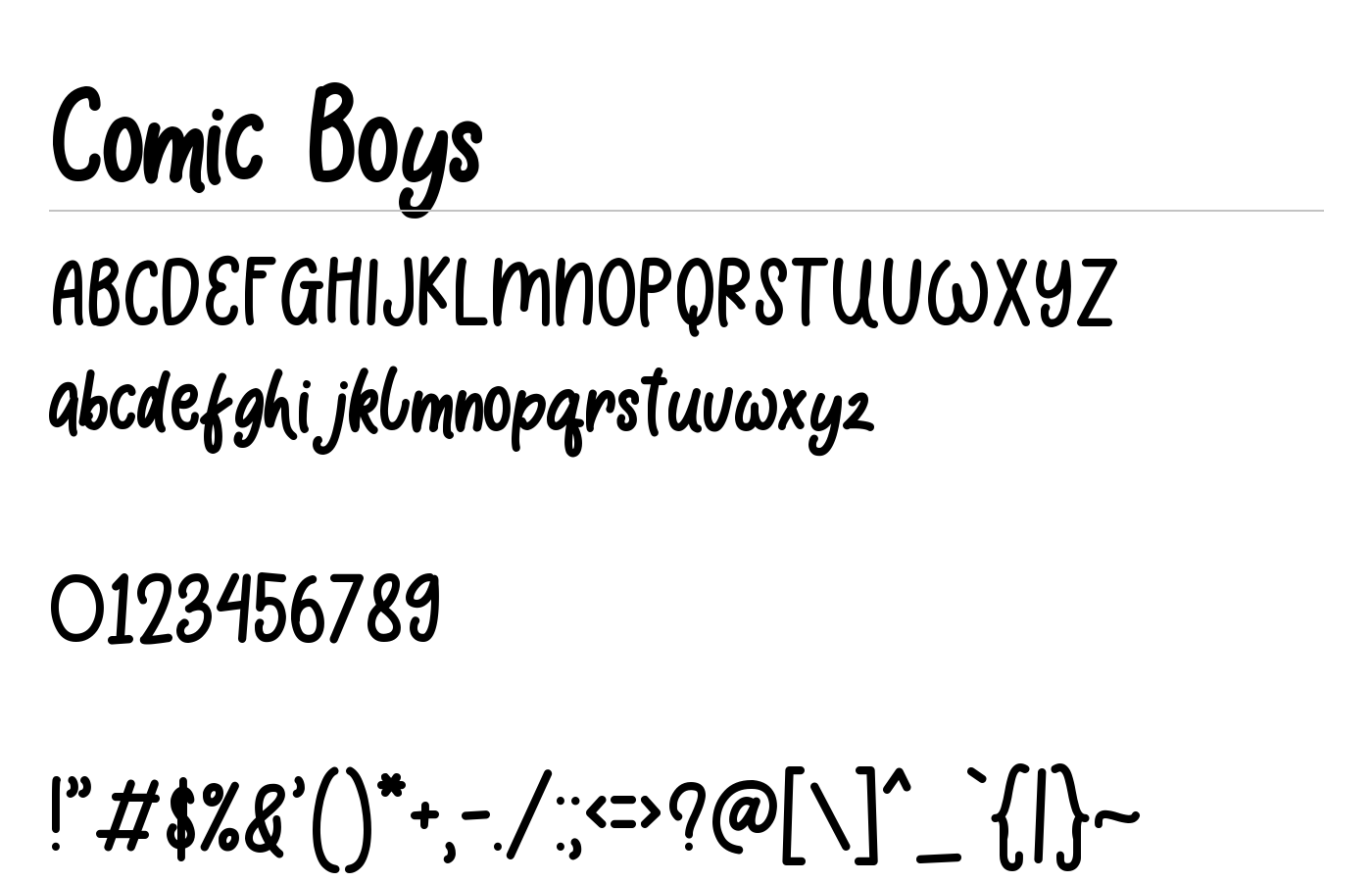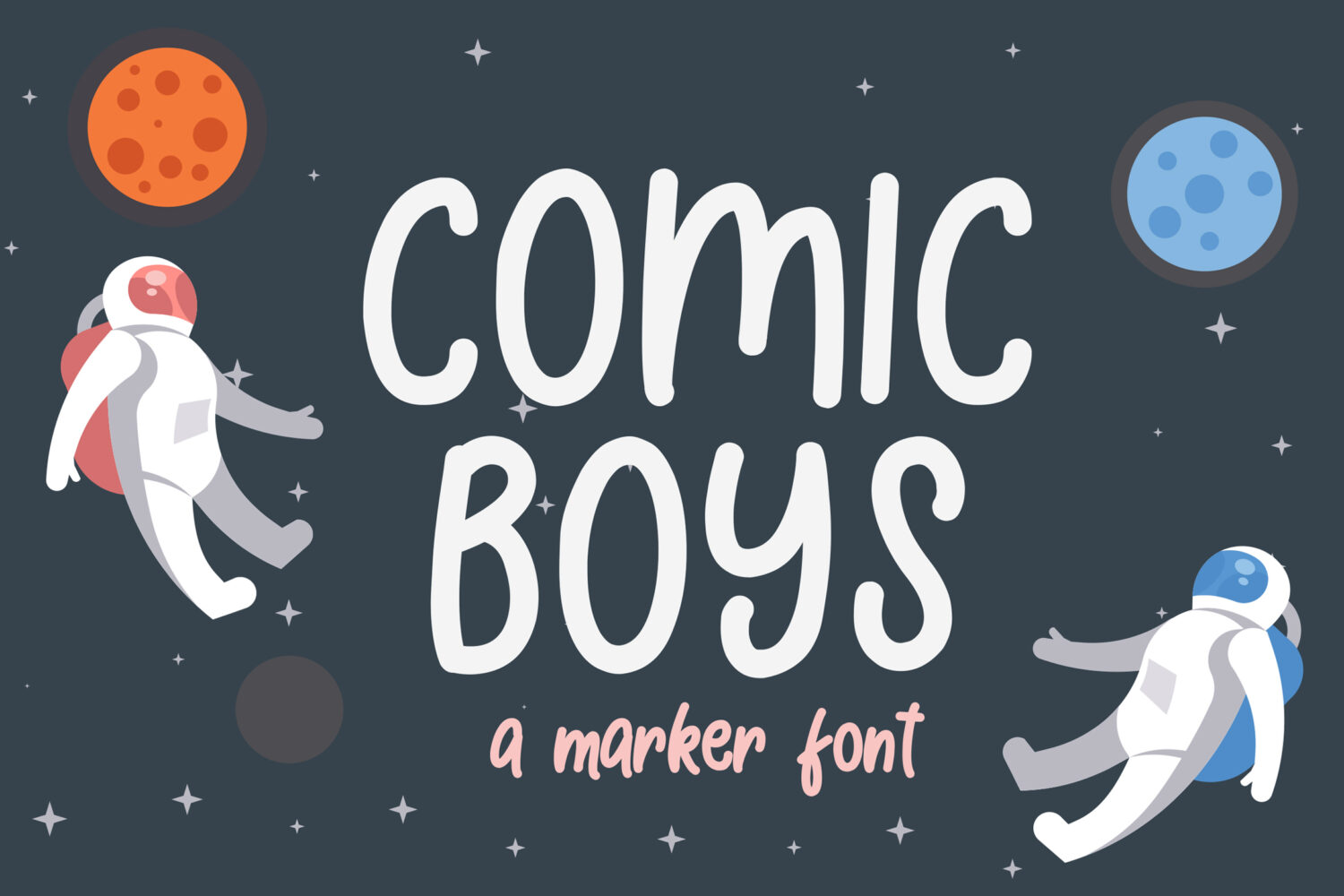
Comic Boys is a playful and casual handwritten sans serif font with a friendly, informal feel. Its rounded, lively letterforms with varied stroke widths and slightly irregular shapes make it perfect for fun, youthful designs like children's books, comics, or casual branding. This font works well in headlines or short texts where a warm, approachable personality is needed.
Comic Boys
About Comic Boys